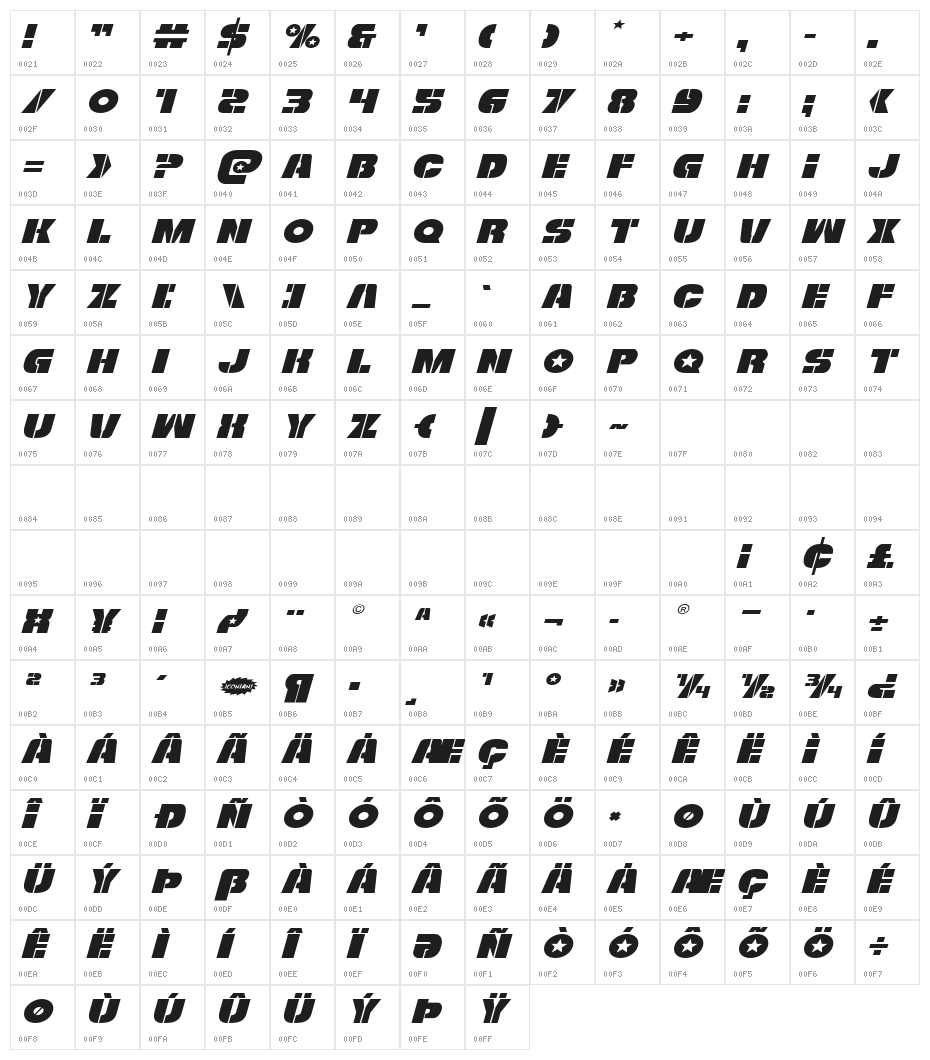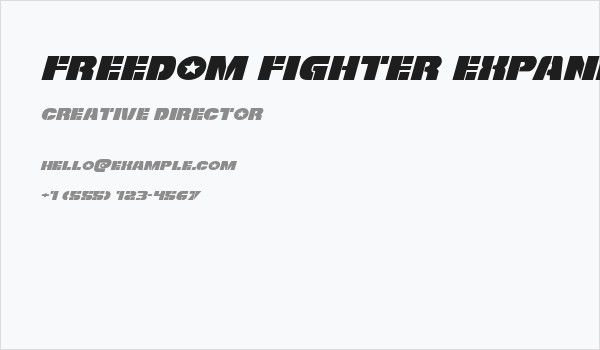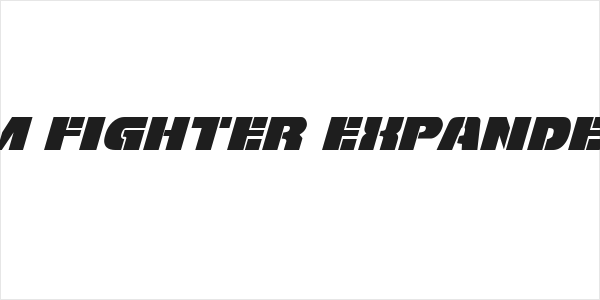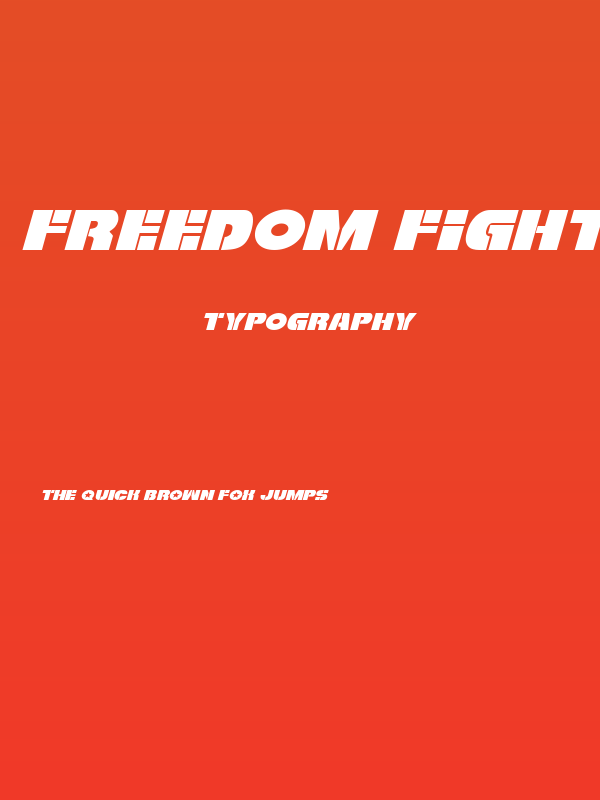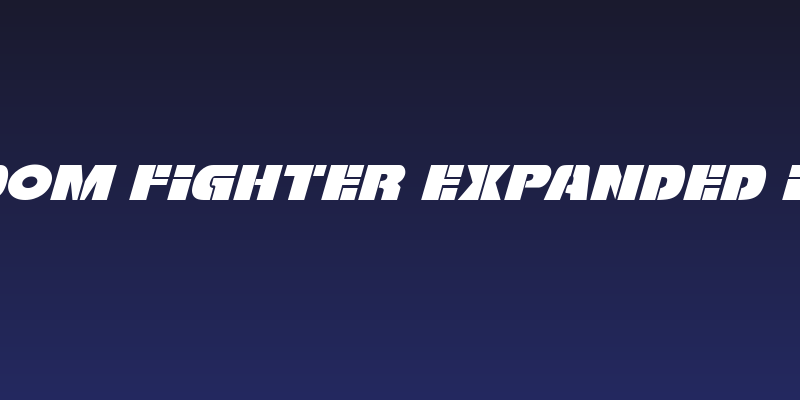
Freedom Fighter Expanded Italic Font
Freedom Fighter Expanded Italic Description
This font features a bold and dynamic style with a strong presence. The characters are expanded and italicized, giving them a sense of movement and energy. The uppercase letters are particularly striking, with sharp angles and a modern aesthetic. The lowercase letters maintain the same boldness, ensuring consistency across the typeface. Numbers and special characters are designed to match the overall style, with some incorporating unique elements like stars. This font is ideal for projects that require a bold statement and a contemporary look.
| Proposed Projects | Ideal for headlines, posters, branding, and any design that requires a strong visual impact. |